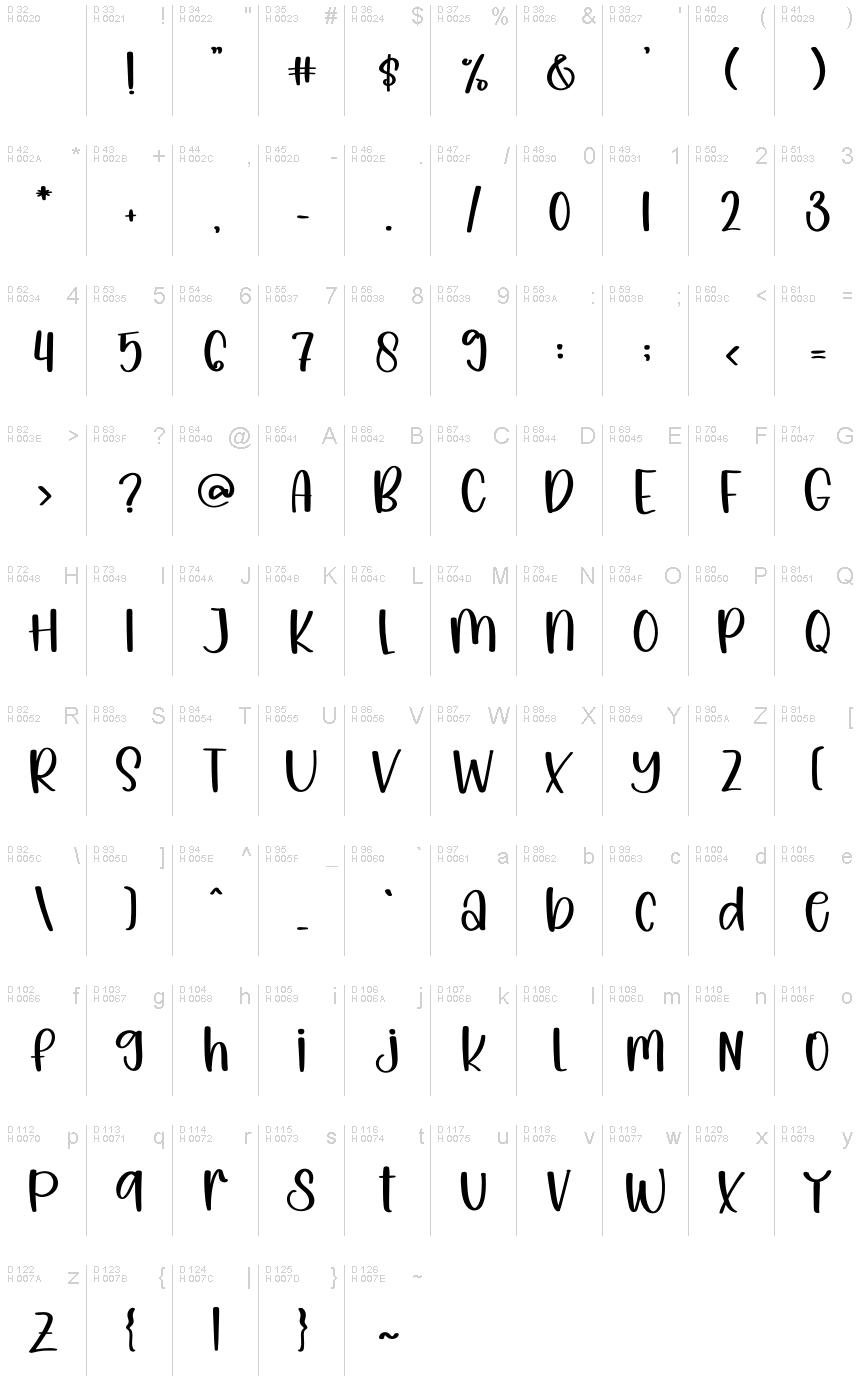
Valentine Vacation
Valentine Vacation, crafted by Inermedia Studio, exudes a sense of personal touch with its handwritten style. The semi-light weight lends an air of delicacy to its semi-condensed letters, creating a blend that's both inviting and space-efficient. Its aesthetic appeal lies in the balance between casual charm and structured formality, making it a versatile choice for designers seeking to convey warmth and authenticity.
Whether gracing the pages of a heartfelt greeting card or setting the tone for an intimate event's branding, Valentine Vacation has the potential to infuse projects with an approachable yet polished vibe. Its unique characteristics position it perfectly for endeavors that demand a touch of personality without compromising on elegance or readability.